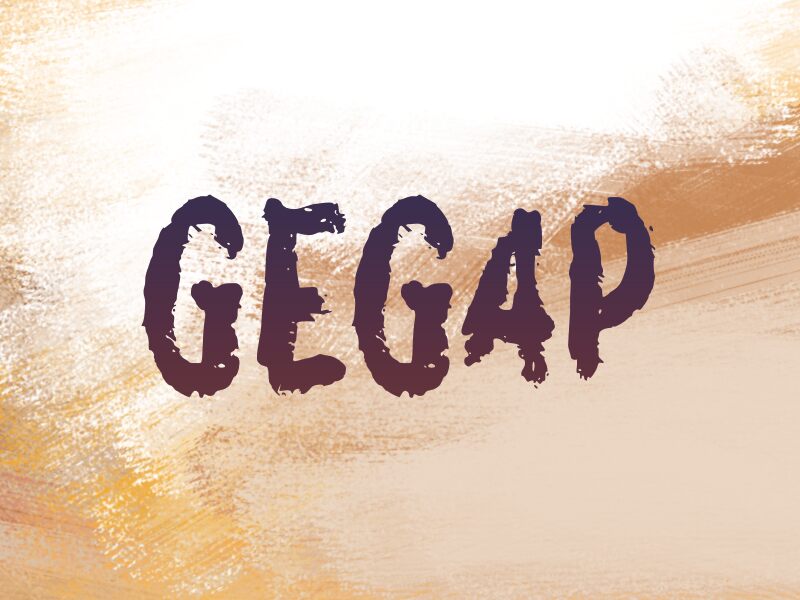
Gegap is a bold, unapologetic script font that exudes a delightfully gritty, almost "trash" aesthetic. Designed by wep, this font commands attention with its strong, angular strokes and an uncompromising attitude. The condensed width lends a sense of urgency and dynamism, while the bold weight amplifies its assertive presence.
Gegap's raw, handcrafted appearance makes it an ideal choice for a variety of design applications, from edgy branding and event promotions to urban-inspired artwork and street-style fashion. Its versatility extends to both digital and print mediums, where it can infuse a project with a distinct, rebellious spirit. Whether used as a headline, a display font, or an accent, Gegap's distinctive personality is sure to leave a lasting impression.